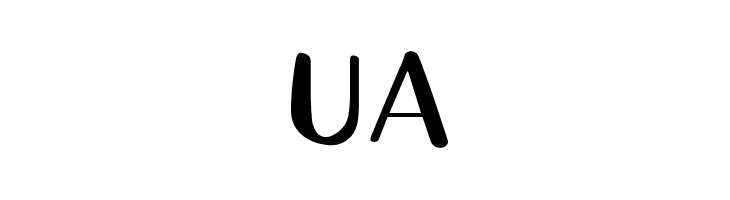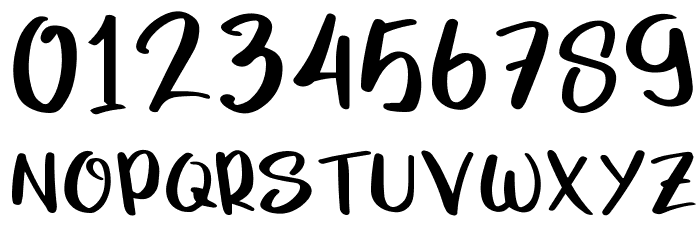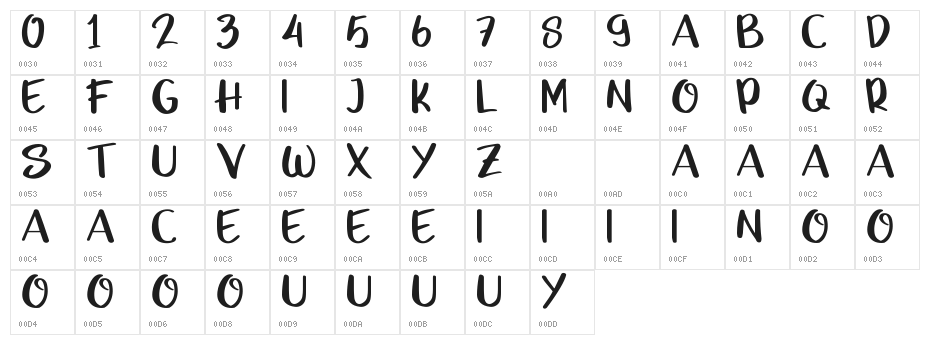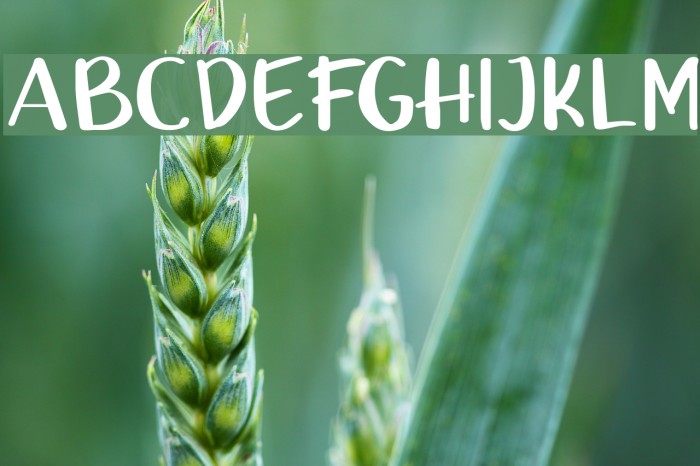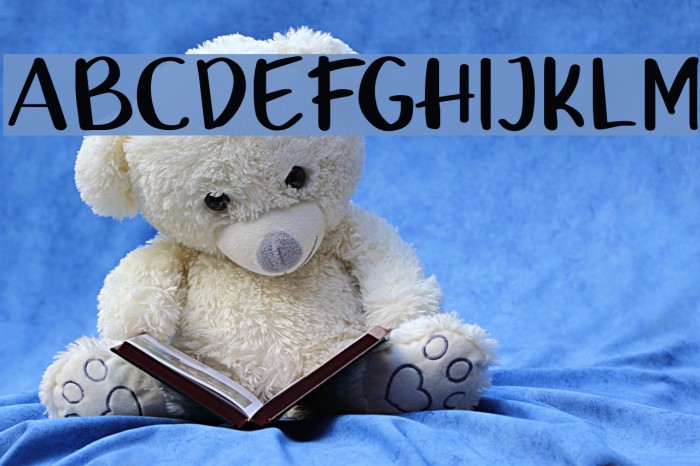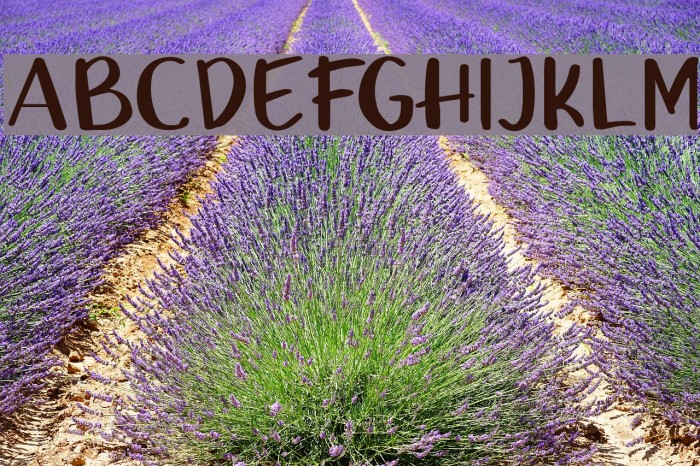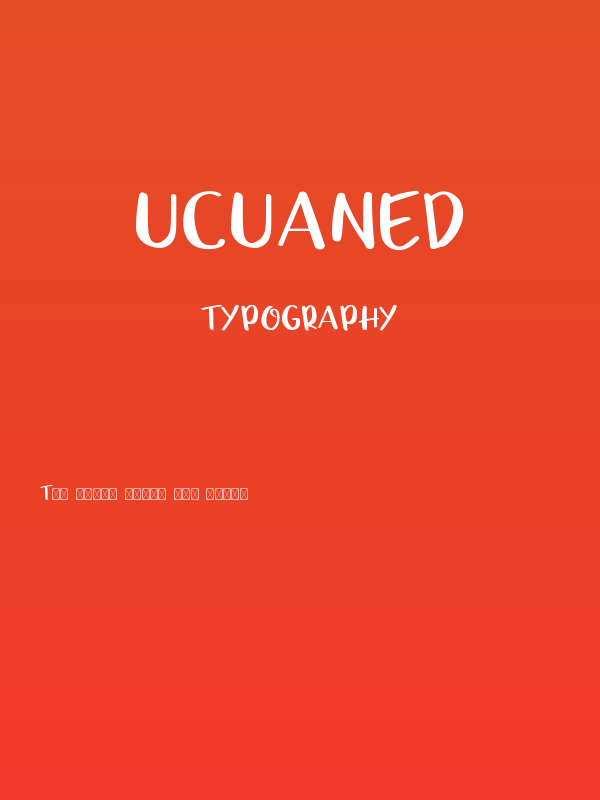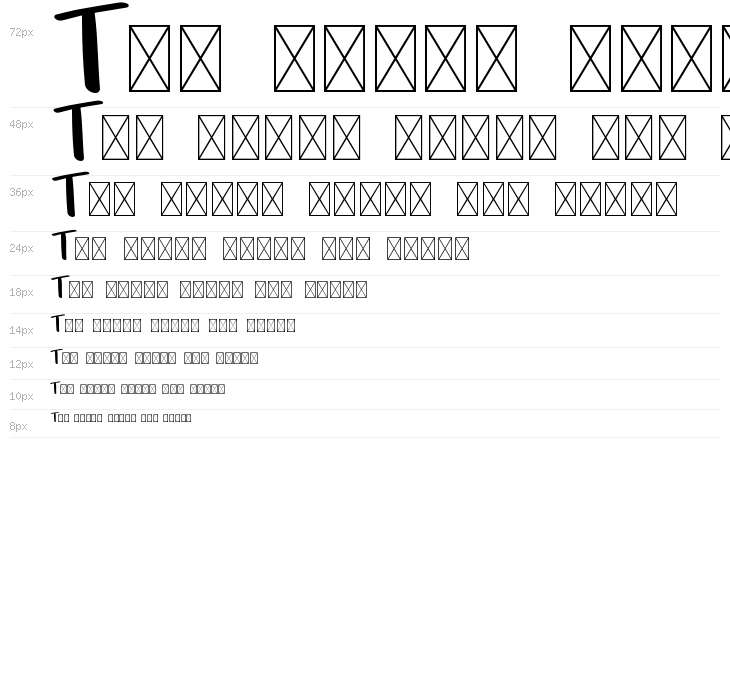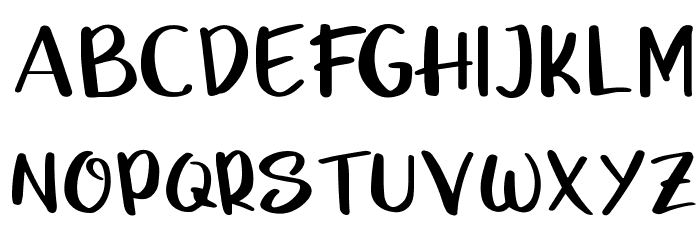
UcuAned Font
UcuAned Description
This font features a playful and energetic style, characterized by its bold and rounded letterforms. Each character exhibits a hand-drawn quality, with smooth curves and a slightly irregular baseline that adds to its casual and friendly appearance. The uppercase and lowercase letters maintain a consistent style, while the numerals and special characters integrate seamlessly with the overall design. The font's informal nature makes it ideal for projects that require a personal touch, such as greeting cards, invitations, or playful branding materials.
| Overall Style | Casual and playful |
| Proposed Projects | Ideal for greeting cards, invitations, playful branding, and children's book covers. |